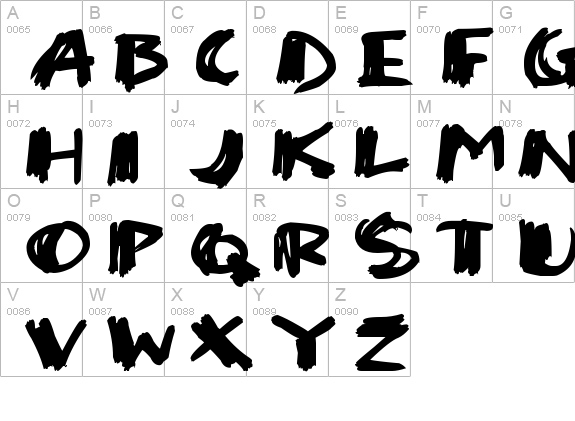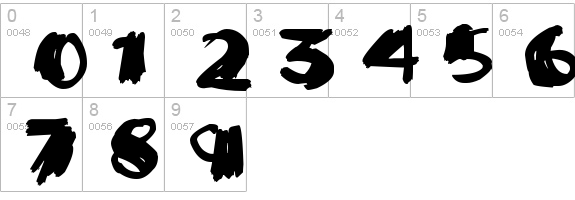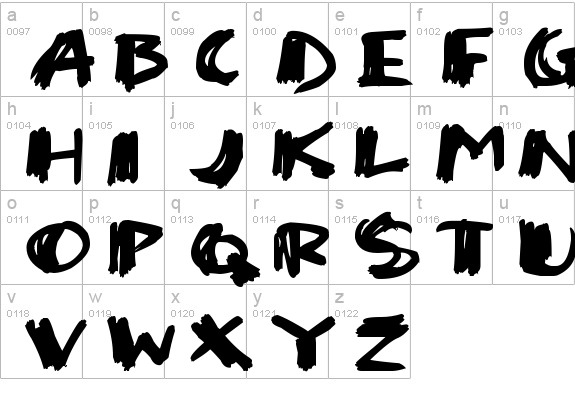
Super Sketch Font Details
Super Sketch is a free for personal use font in the Script category, designed by Darrell Flood. It has been downloaded 19 times and is available for Windows, Mac and Linux.
Super Sketch font is a whimsical and playful typeface that adds a touch of creativity to any design project. With its hand-drawn appearance and unique character shapes, this font is perfect for adding a fun and artsy element to your designs. Whether you're working on a poster, greeting card, or logo, Super Sketch font is sure to make your text stand out.